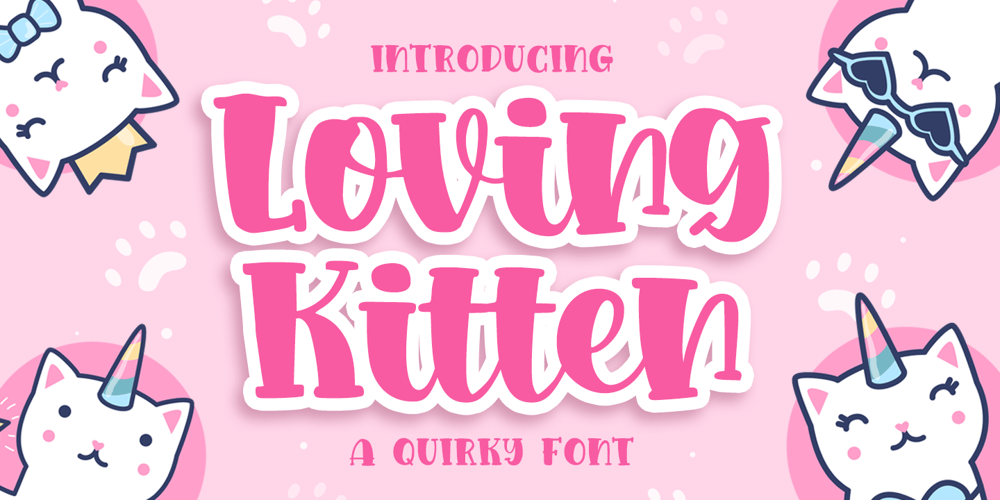
Loving Kitten
Loving Kitten font
Loving Kitten Font Family was designed by Bangkit Tri Setiadi and published by Blankids. Loving Kitten contains 1 styles and family package options. Introducing of our new product the name is Loving kitten a Quirky Font. Loving kitten inspired by Quirky Handwritten style this font is a fun theme very good for display, tshirt design, craft, quote sign, logotype and etcFEATURES : Uppercase Lowercase Number Punctuation Multilingual PUA Encode Opentype